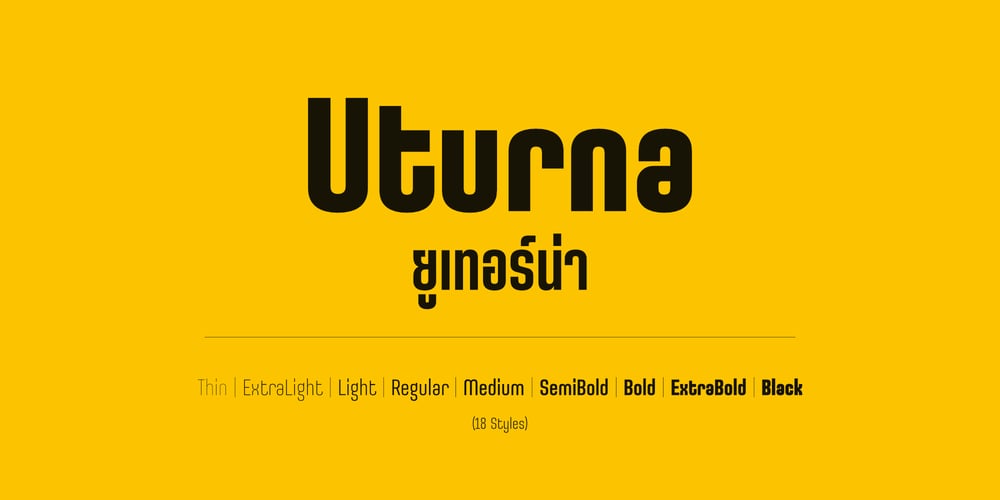
Uturna Font Family was designed by Anupap Jaichumnan and published by Jipatype. Uturna contains 18 styles and family package options. Uturna is a modern, condensed sans-serif typeface that stands out with its unique design rooted in the “U” shape structure. This distinct characteristic gives Uturna a sleek, contemporary look. The condensed form allows for efficient space usage, making Uturna an excellent choice for projects where text needs to be compact yet remain highly legible.